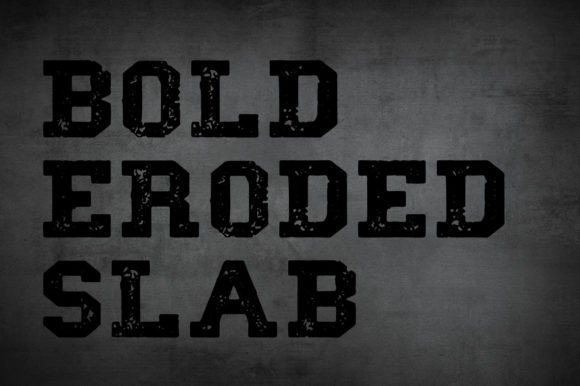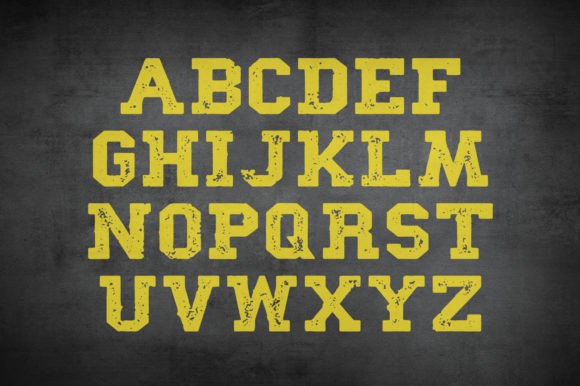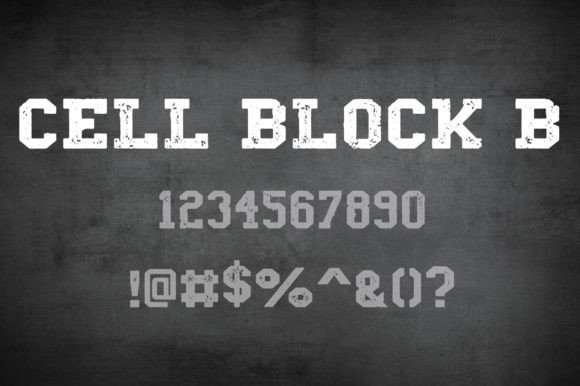
Introducing Cell Block B Font: The Ultimate Choice for Vintage Designs and Posters
Are you a designer or crafter looking for a unique and eye-catching font to add a touch of nostalgia to your projects? Look no further than Cell Block B Font, a bold and distressed slab serif display font that’s perfect for creating vintage-inspired designs and posters. In this article, we’ll explore the features and benefits of Cell Block B Font, and show you how to make the most of this amazing font in your projects.
The Story Behind Cell Block B Font
Cell Block B Font is a carefully crafted font that’s designed to appear distressed and worn, giving it a unique and authentic vintage look. The font’s bold and chunky design makes it perfect for headlines, titles, and other display text, while its slab serif style adds a touch of sophistication and elegance. Whether you’re creating a poster, flyer, or social media graphic, Cell Block B Font is sure to grab attention and make your design stand out.
Key Features of Cell Block B Font
• Distressed texture: Cell Block B Font features a unique distressed texture that gives it a worn and vintage look.
• Bold and chunky design: The font’s bold and chunky design makes it perfect for headlines, titles, and other display text.
• Slab serif style: The font’s slab serif style adds a touch of sophistication and elegance to your designs.
How to Use Cell Block B Font in Your Projects
Tips and Tricks for Getting the Most Out of Cell Block B Font
• Experiment with different colors: Cell Block B Font looks great in a variety of colors, so don’t be afraid to experiment and find the perfect color for your design.
• Use it for headlines and titles: The font’s bold and chunky design makes it perfect for headlines and titles.
• Add texture and graphics: Consider adding texture and graphics to your design to give it an extra layer of depth and interest.
• Mix and match with other fonts: Cell Block B Font looks great when paired with other fonts, so feel free to experiment and find the perfect combination for your design.
Why Designers and Crafters Love Cell Block B Font
Cell Block B Font has quickly become a favorite among designers and crafters, and for good reason. The font’s unique distressed texture and bold design make it perfect for creating vintage-inspired designs and posters. Plus, the font is easy to use and compatible with most design software.
Font Name Cell Block B Font
Author stompstock